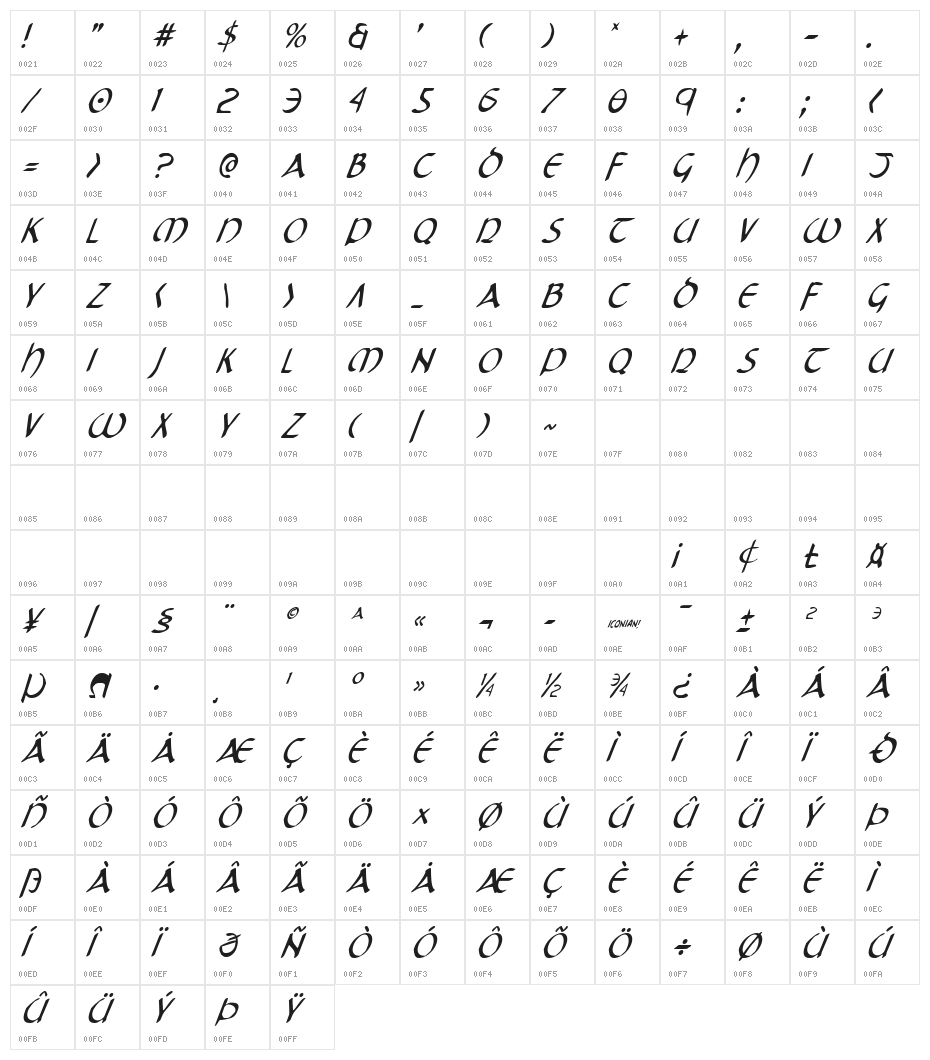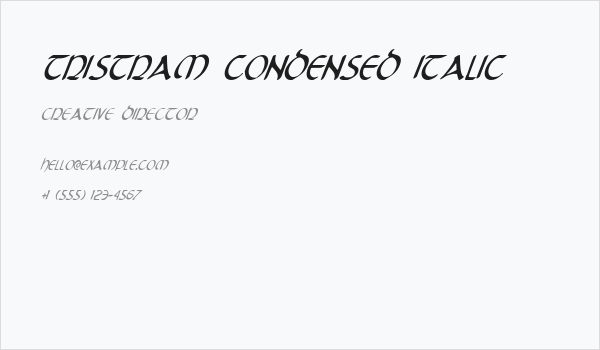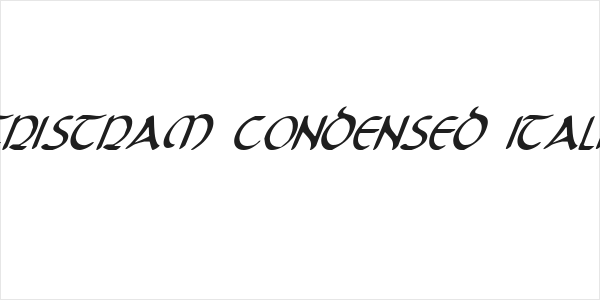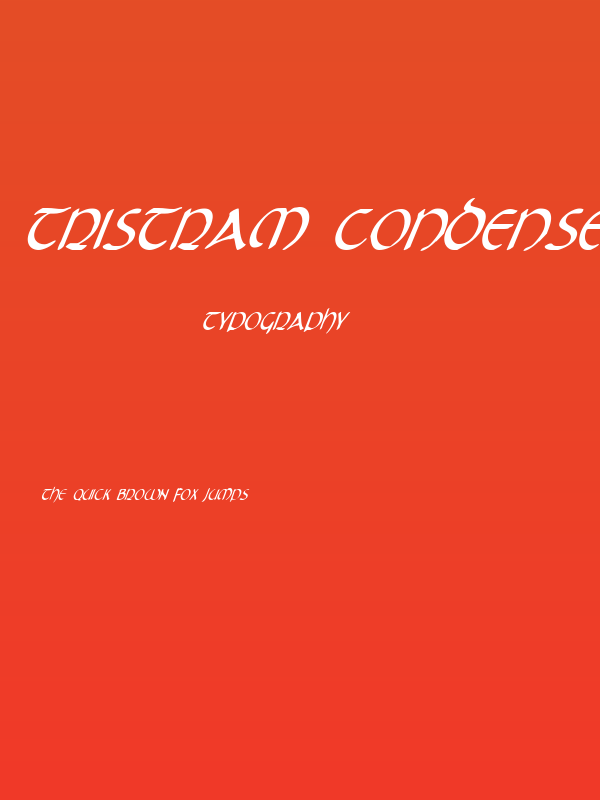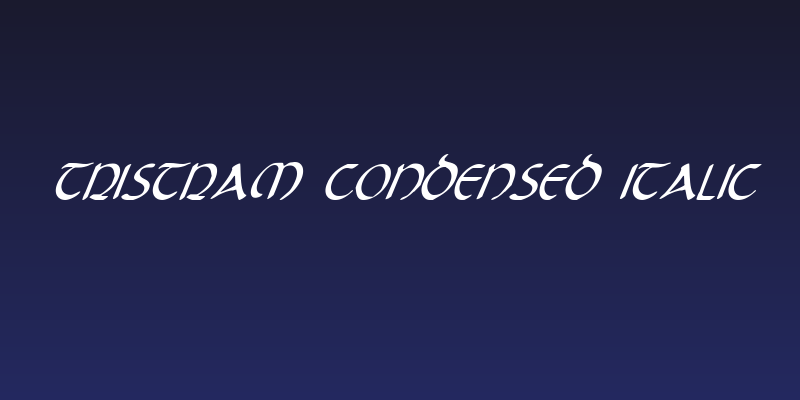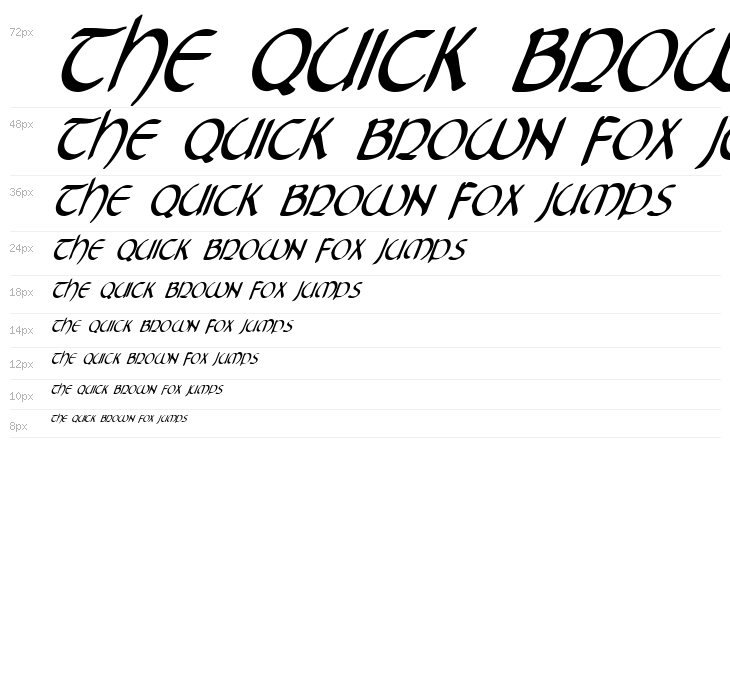
Tristram Condensed Italic Font
Tristram Condensed Italic Description
This font features a dynamic and flowing italic style with a condensed structure. The characters exhibit a calligraphic influence, with elegant curves and sharp edges that create a sense of movement and energy. The uppercase and lowercase letters maintain a consistent slant, enhancing the italicized appearance. Numbers and special characters are designed with the same fluidity, ensuring a cohesive look across all glyphs. The overall design is both artistic and legible, making it suitable for creative and expressive applications.
| Use Case | Headlines, Logos, Artistic projects |
| Proposed Projects | Ideal for artistic projects, branding, invitations, and expressive headlines. |